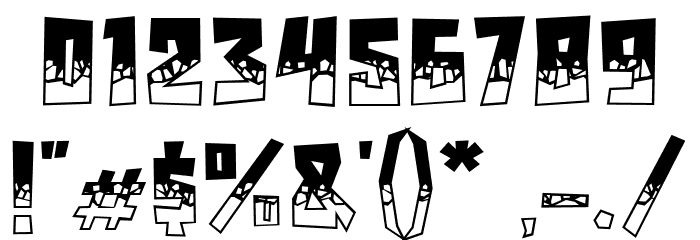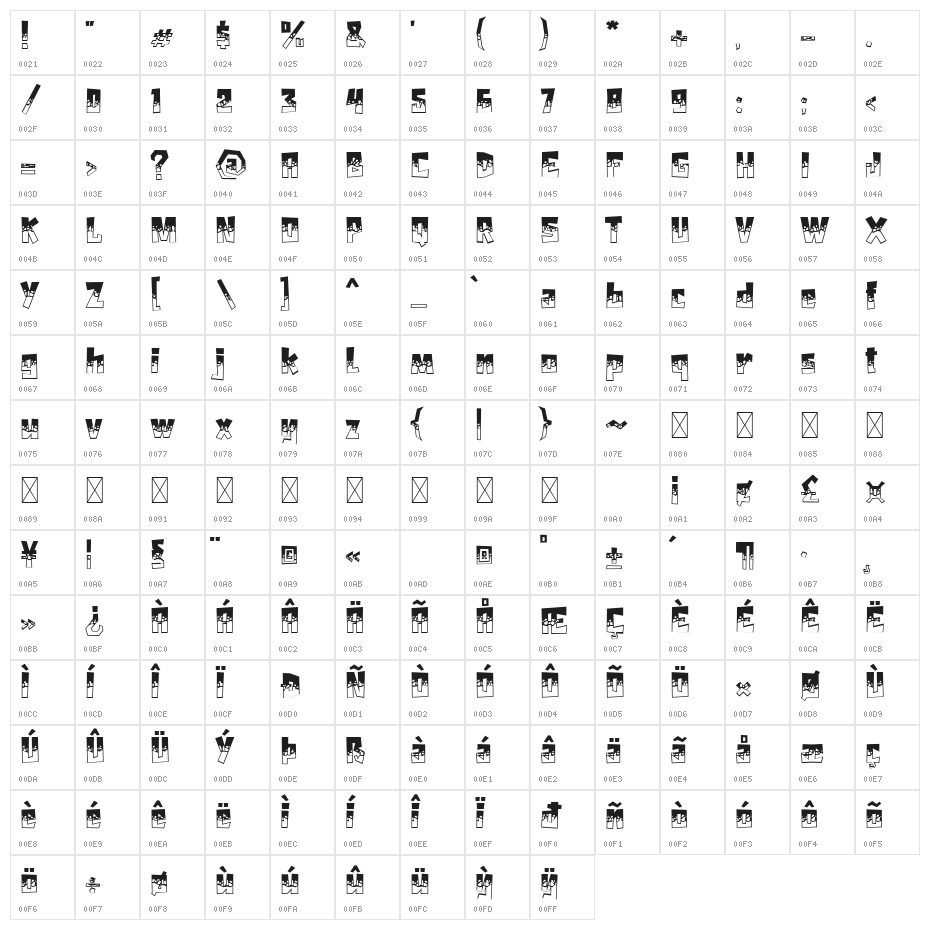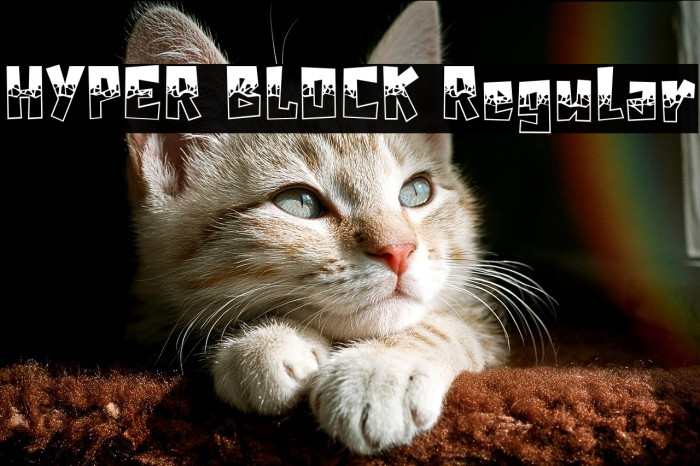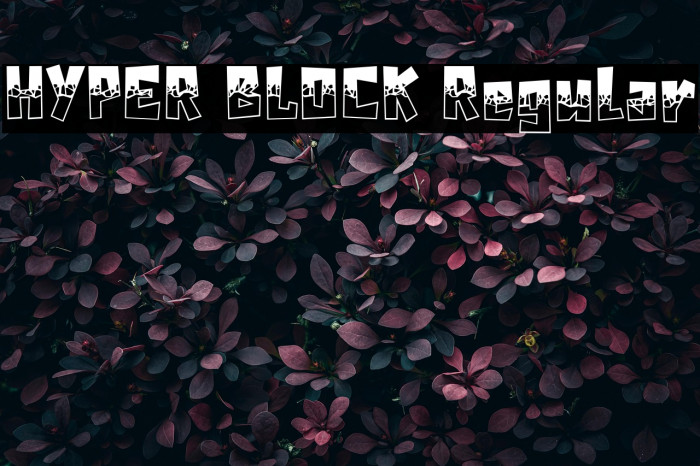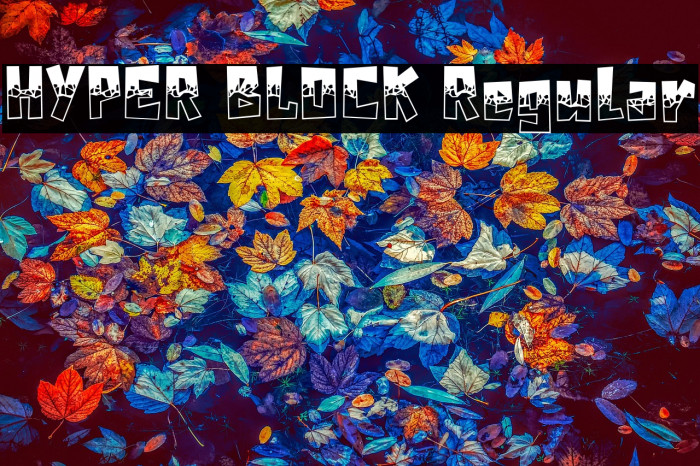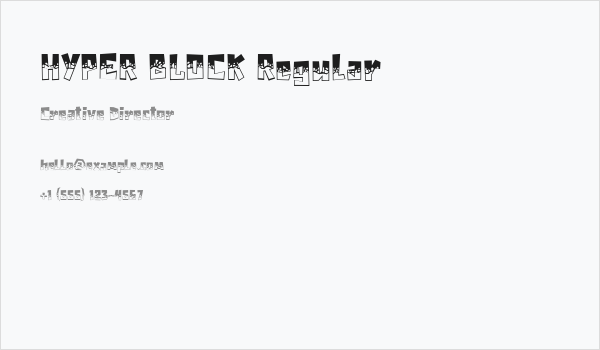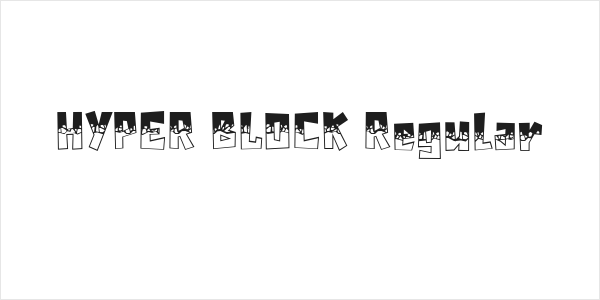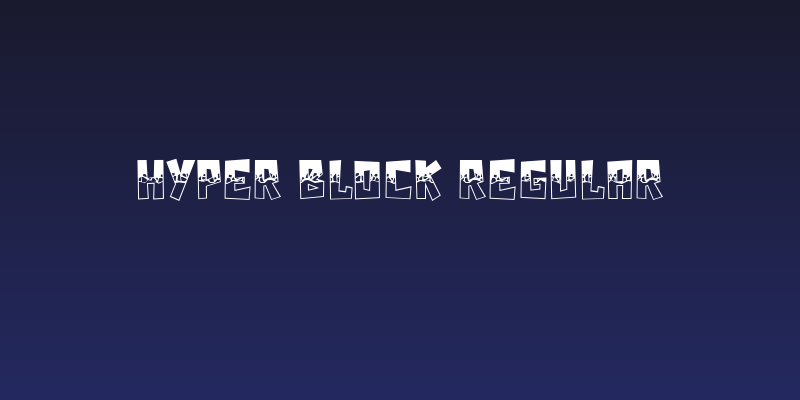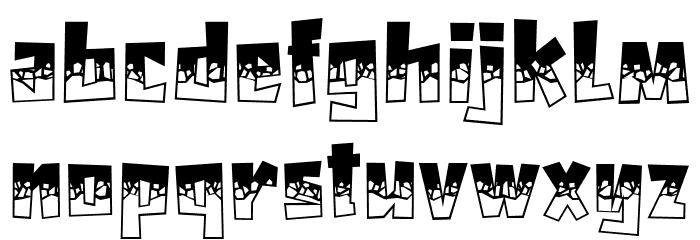
HYPER BLOCK Regular Font
HYPER BLOCK Regular Description
This font features a bold, geometric design with a unique blocky appearance. Each character is filled with angular, crystal-like shapes, creating a dynamic and eye-catching effect. The uppercase and lowercase letters maintain a consistent style, with sharp edges and a playful yet structured form. The numbers and special characters follow the same aesthetic, ensuring a cohesive look across all text elements. This font's distinct style makes it ideal for projects that require a modern and edgy feel.
| Proposed Projects | Ideal for posters, album covers, video game titles, and branding that requires a modern and edgy look. |